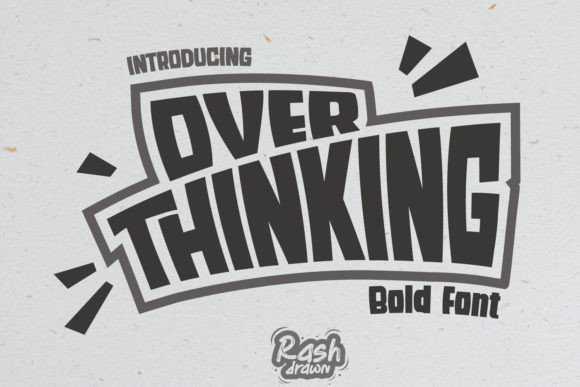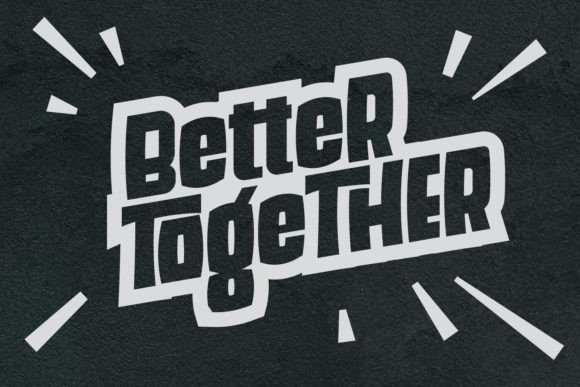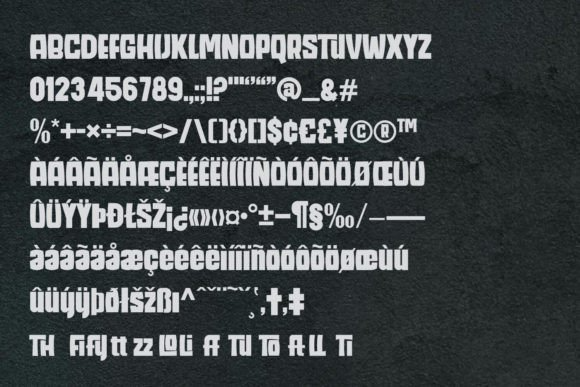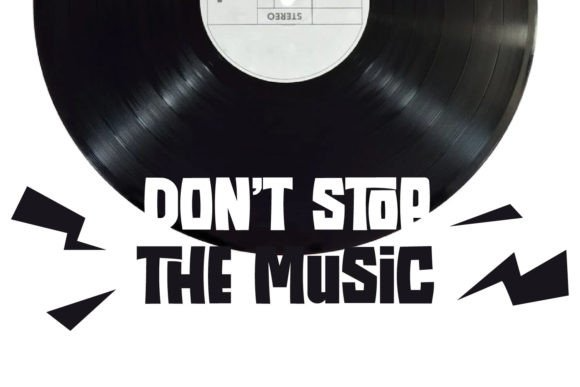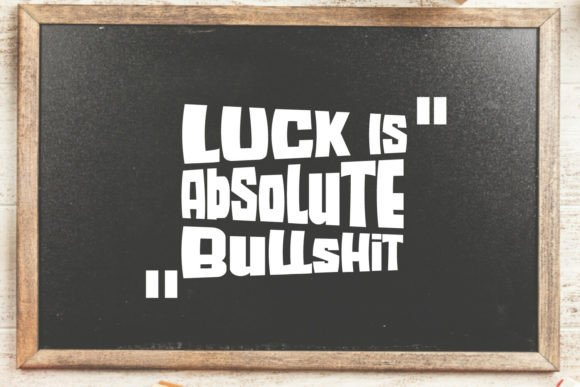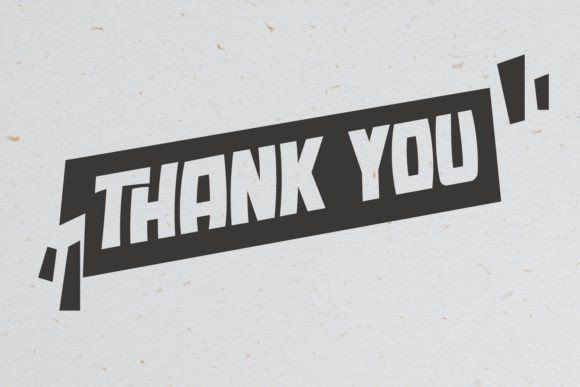
Over Thinking Font
Introducing Over Thinking, a modern display typeface take on a thick line style. It has a unique shape on selective characters, that’s sure to make your designs stand out.